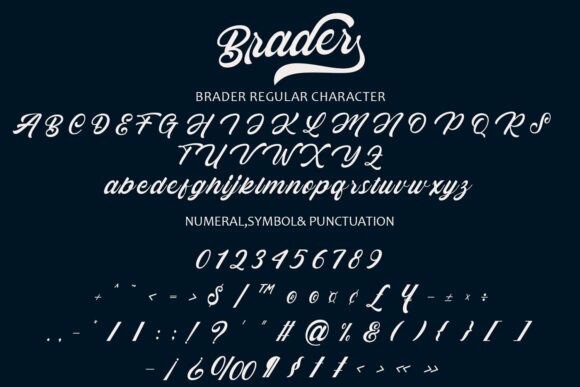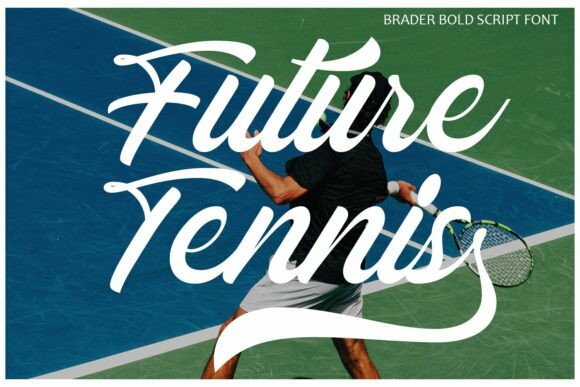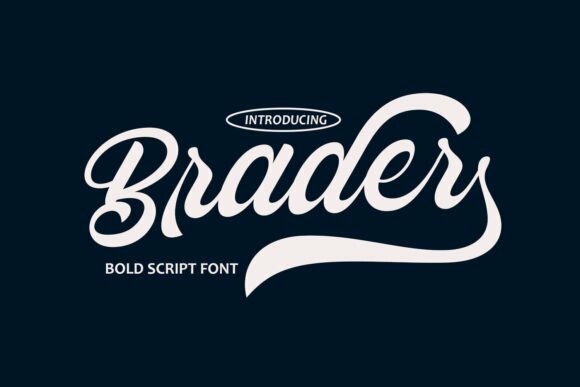
Brader Font
Designer: Arendxstudio
Brader Font is a bold script font designed to make a strong visual impact. Characterized by its thick, confident strokes and dynamic curves, Brader is perfect for projects that require a touch of boldness and creativity. This font seamlessly blends the elegance of script fonts with the assertiveness of bold typography, making it a versatile choice for various design applications.